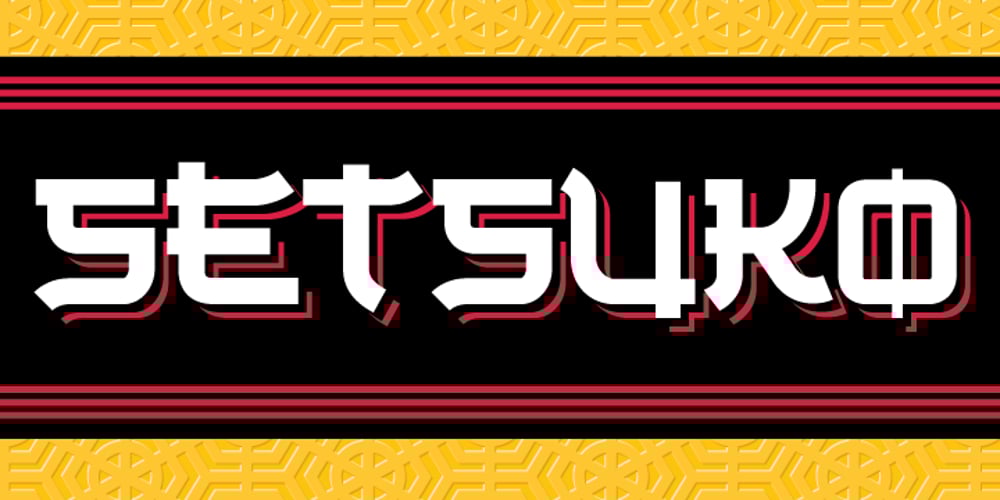
Setsuko Font Family was designed by Daniel Pelavin and published by Pelavin Fonts. Setsuko contains 1 styles and family package options. Setsuko finds its origins on the ancient Silk Road, a network of trade routes crossing the continent of Asia, named for the Chinese silk trade which began in the Han Dynasty more than two thousand years ago. Originally designed to brand and package products celebrating the charm and mystery of the Ancient East, the characters in Setsuko are intended to express admiration and respect, not stereotyping or parody hoping to leave room for a designer’s creativity and personal interpretation.